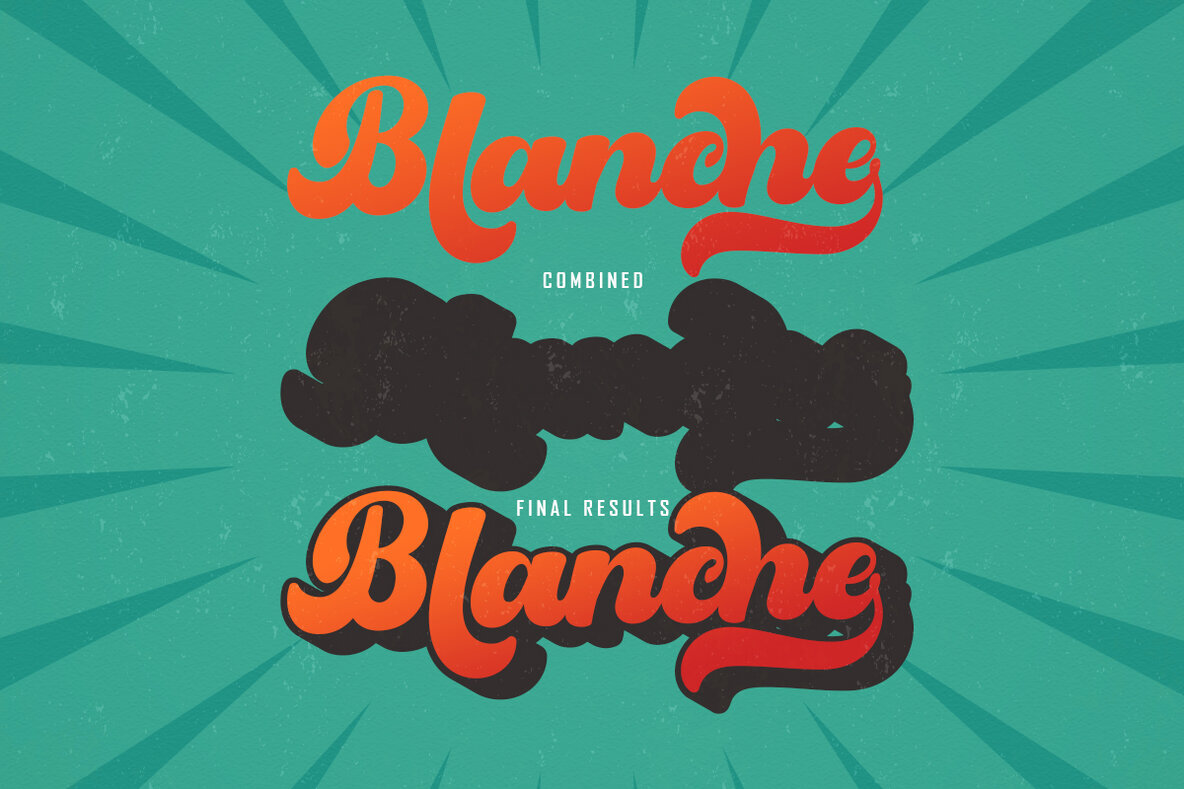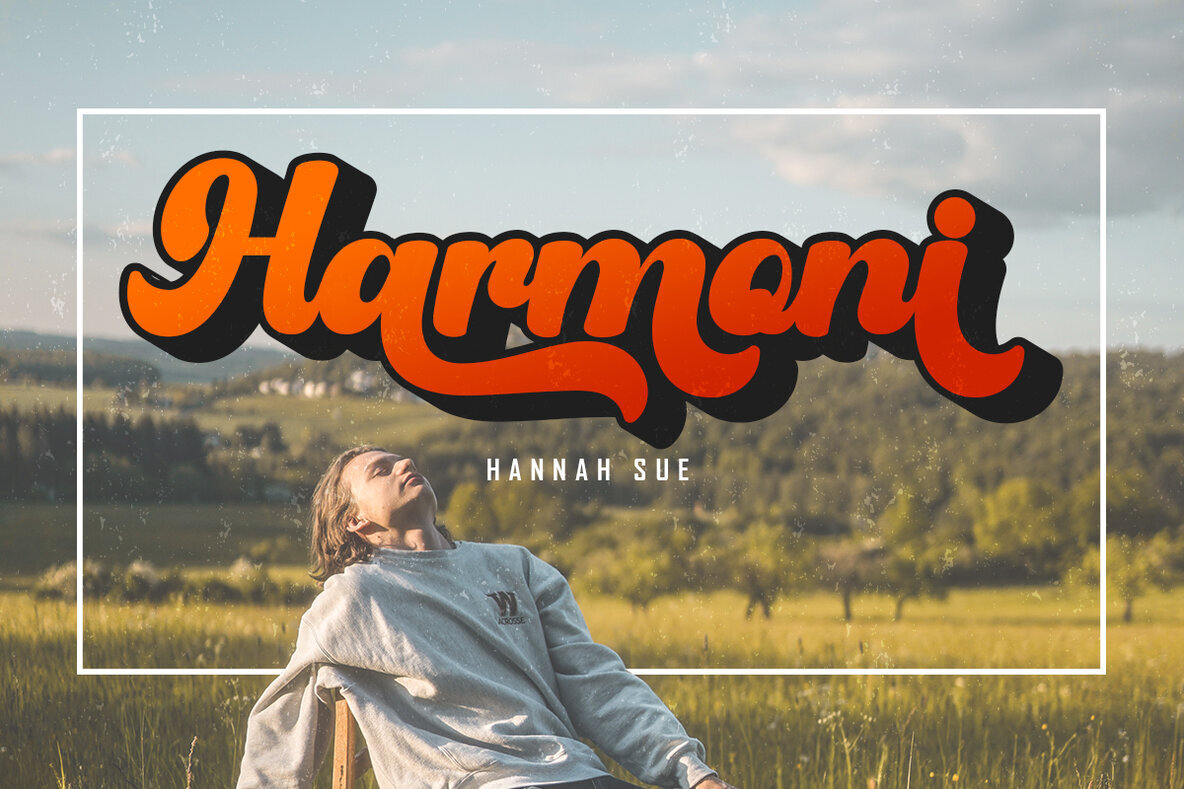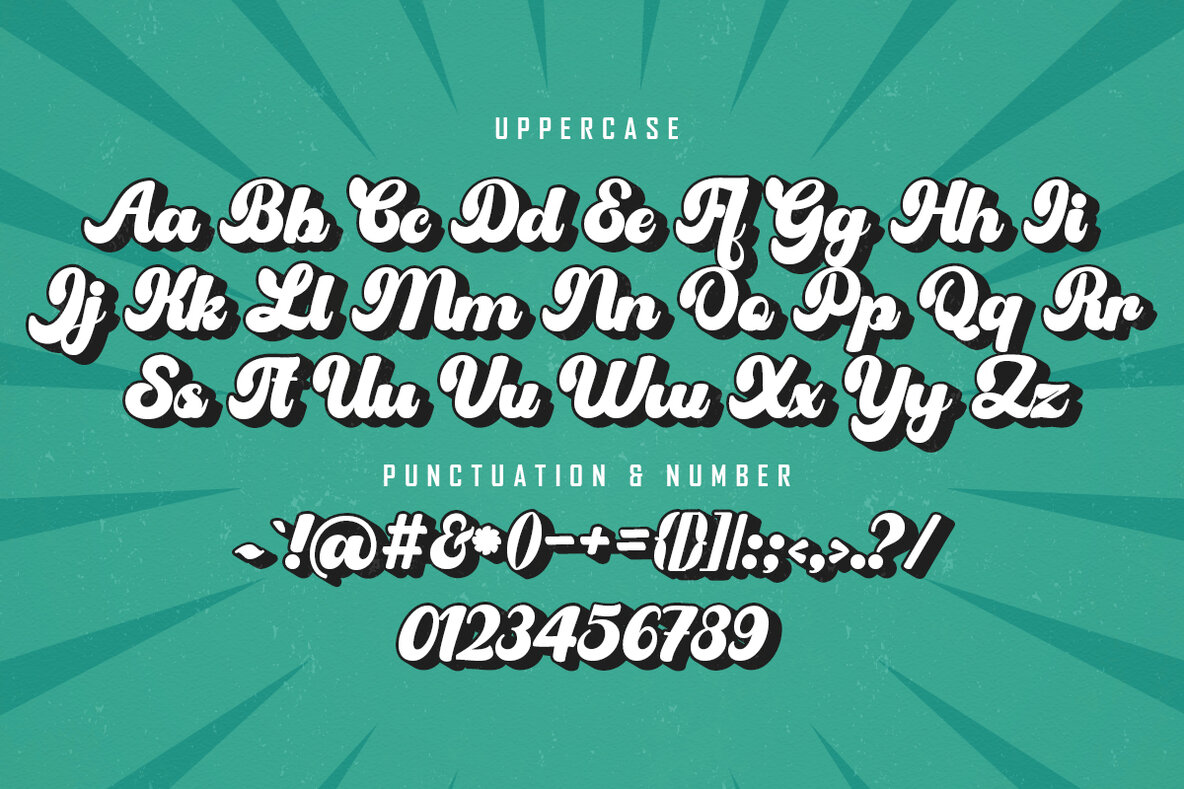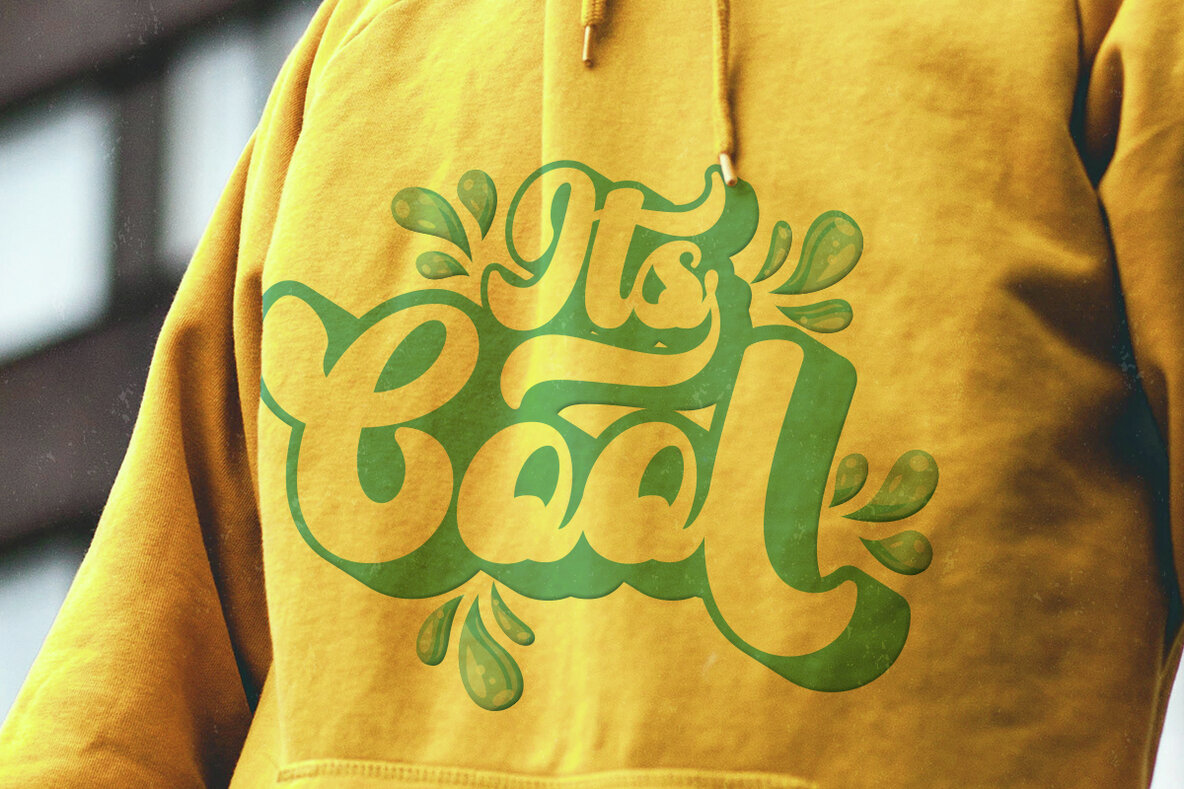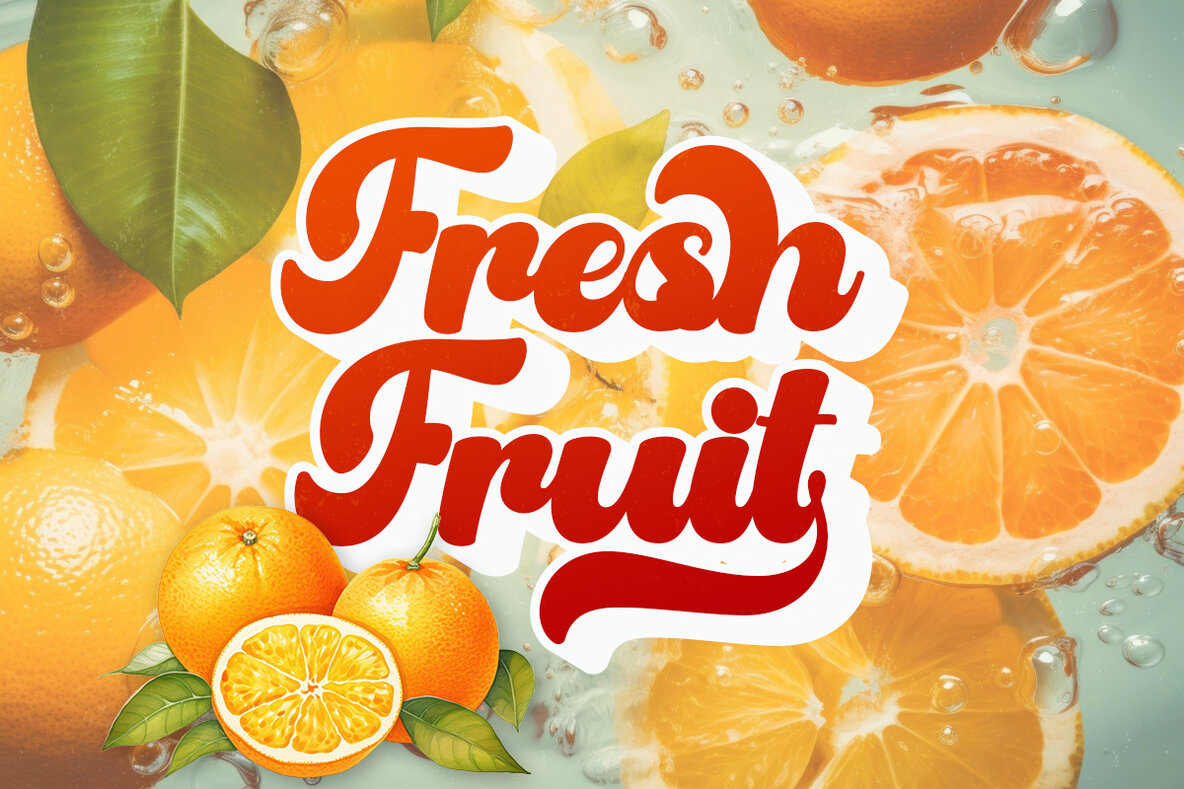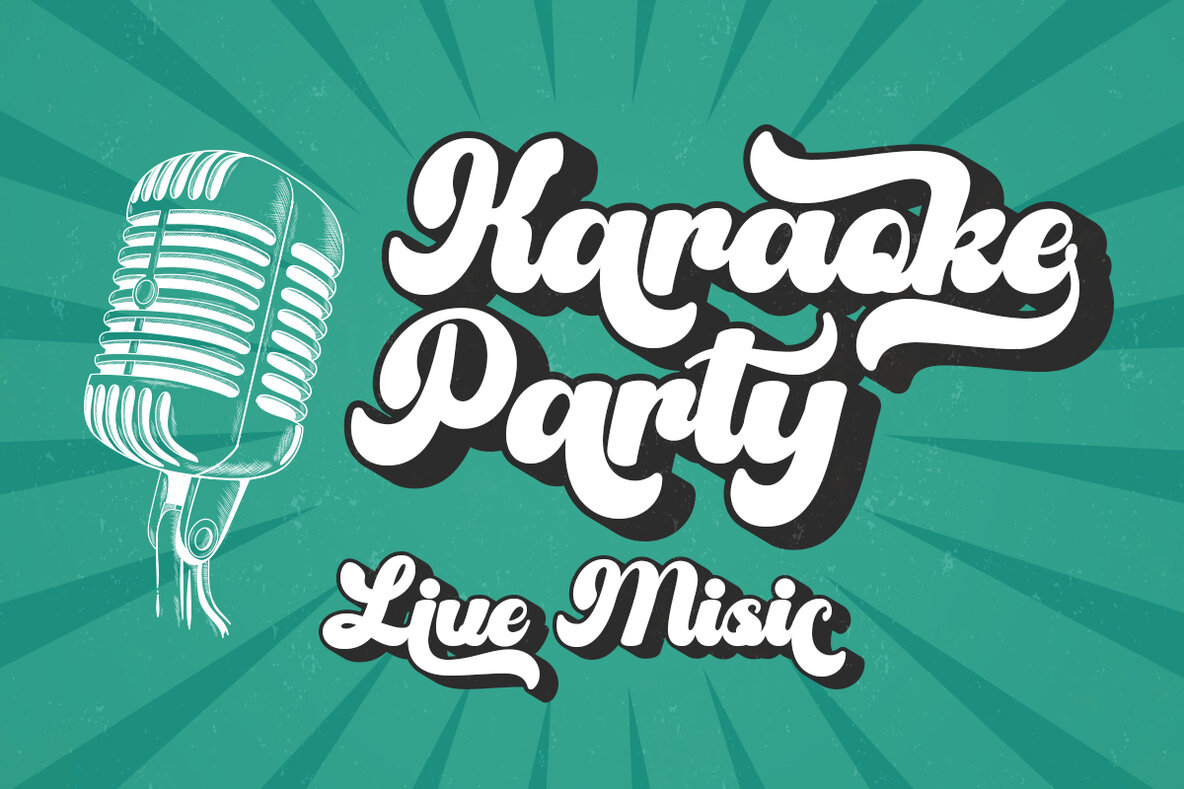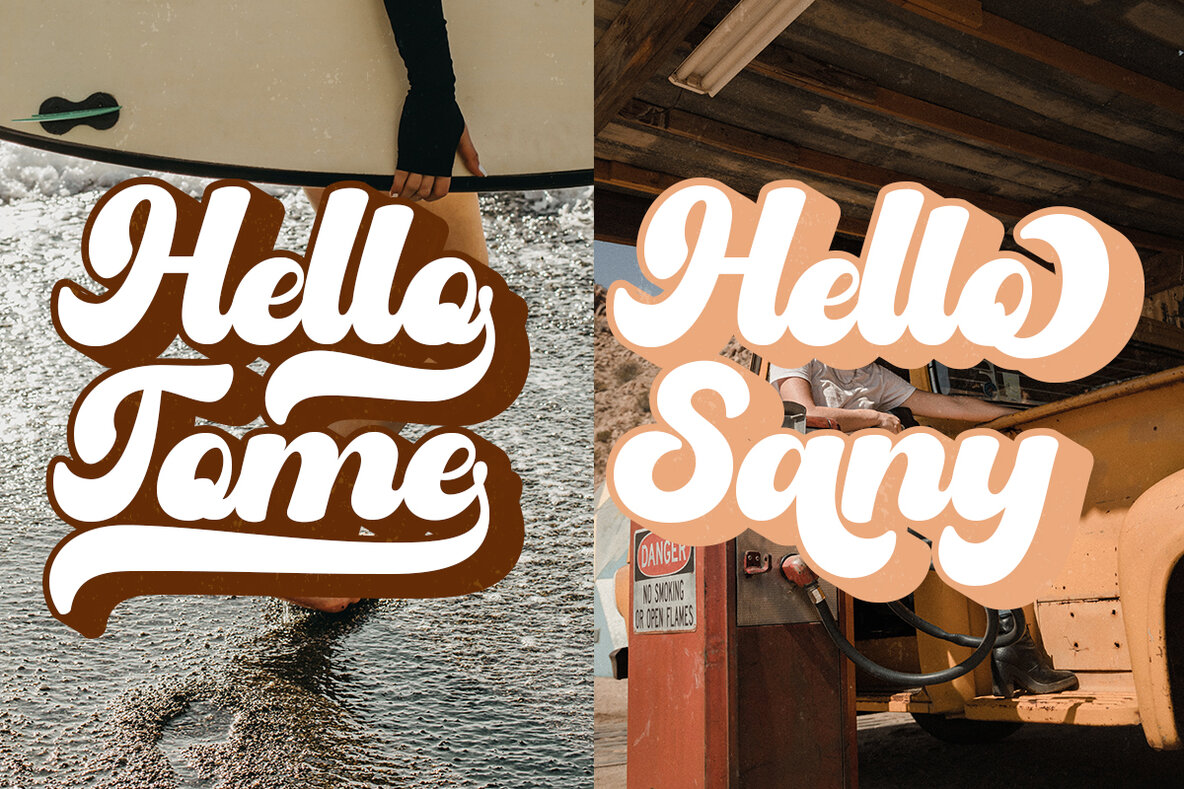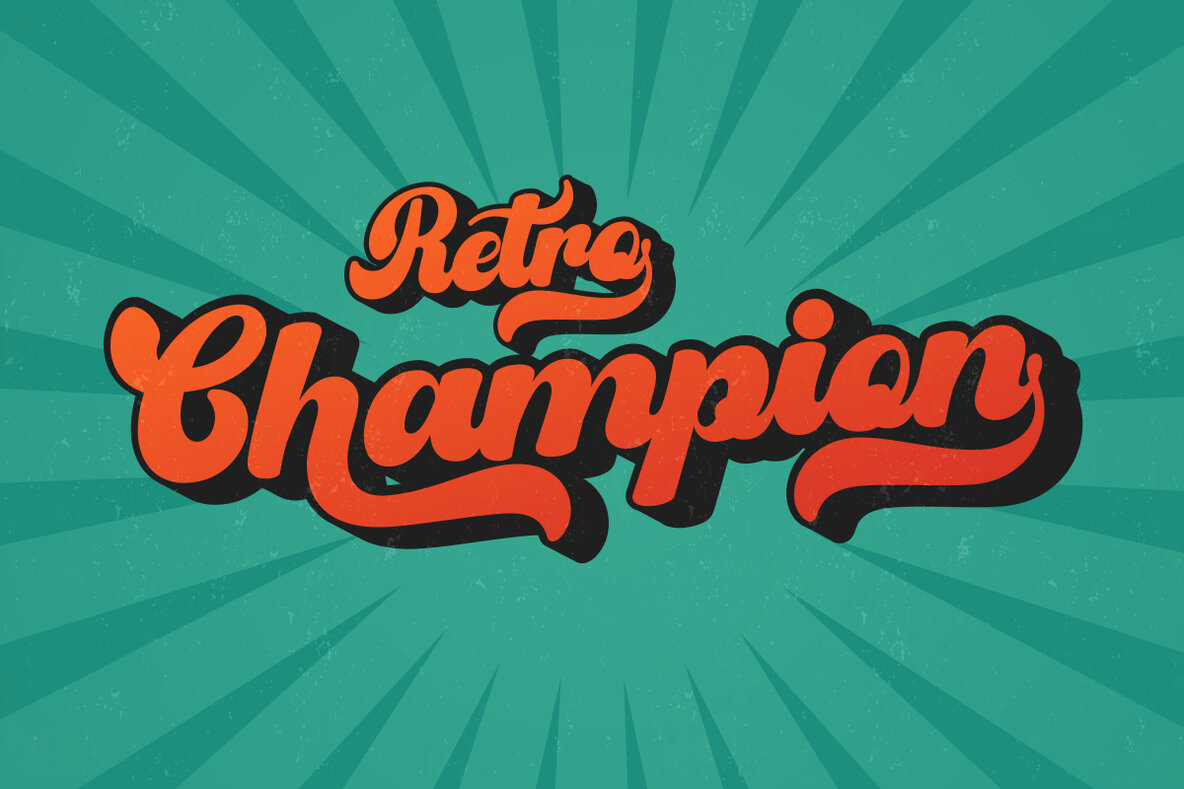
Retro Blanche Font
Retro Blanche is a uniquely designed hand-drawn script font that brings a touch of nostalgia to your projects. This font is ideal for adding a playful and retro vibe to a wide range of creative designs. Retro Blanche is versatile, making it suitable for various applications, including: Retro Blanche includes shadow/extrude versions that are aligned to fit perfectly with Retro Blanche Regular, allowing for easy layering and enhanced dimension in your designs.Retro Blanche: A Hand-Drawn Retro Script Font
Perfect For Your Designs
Layered Font Variations